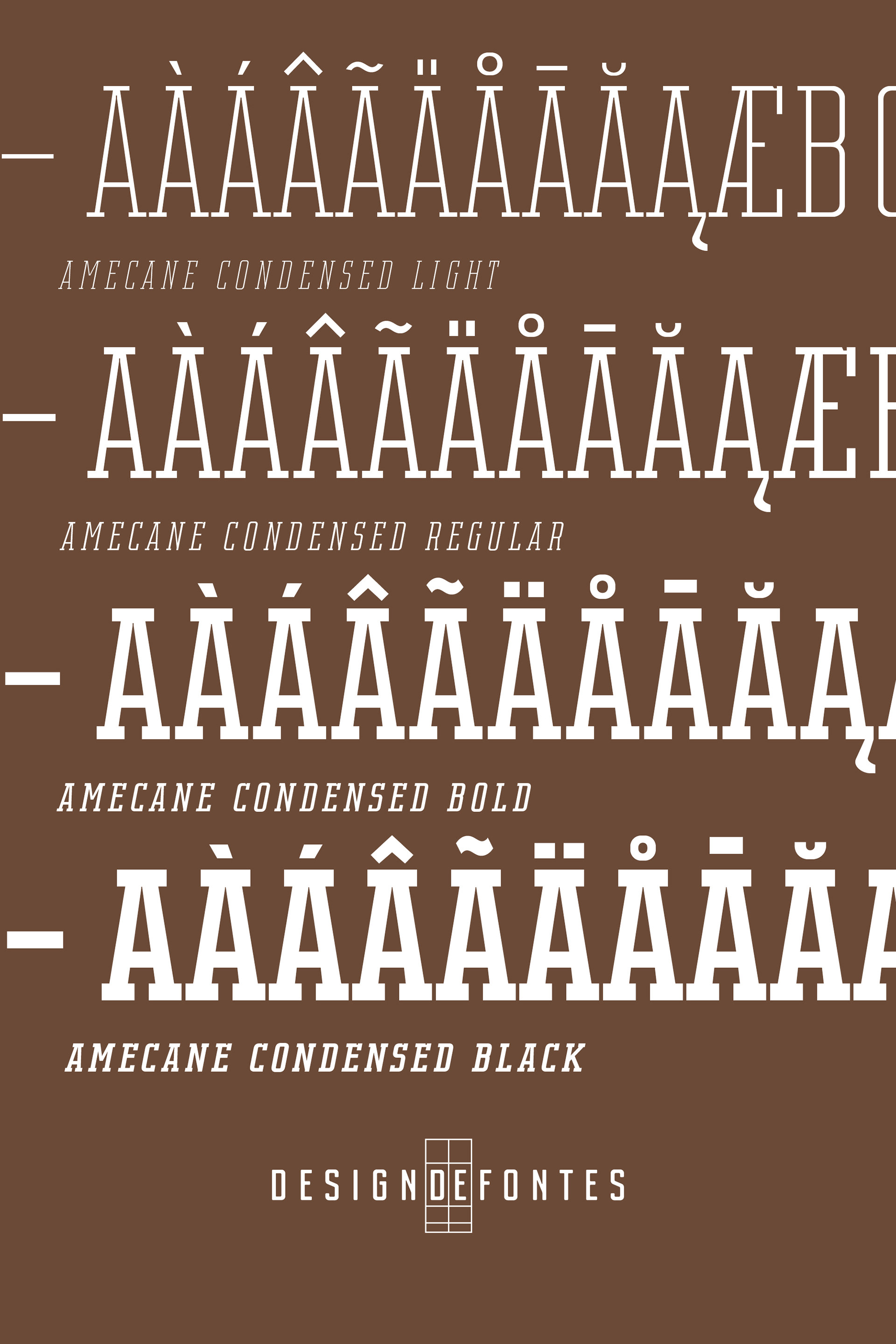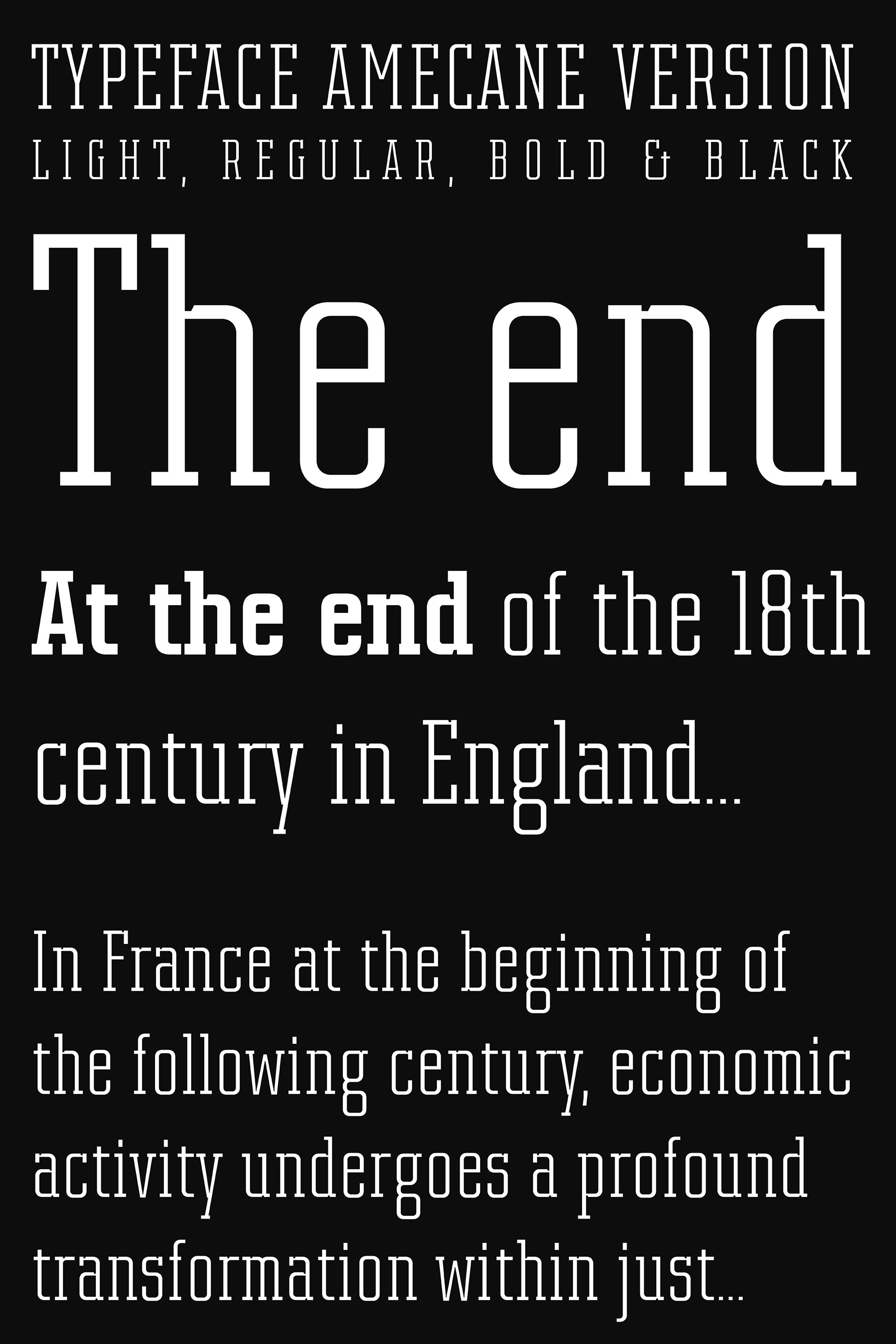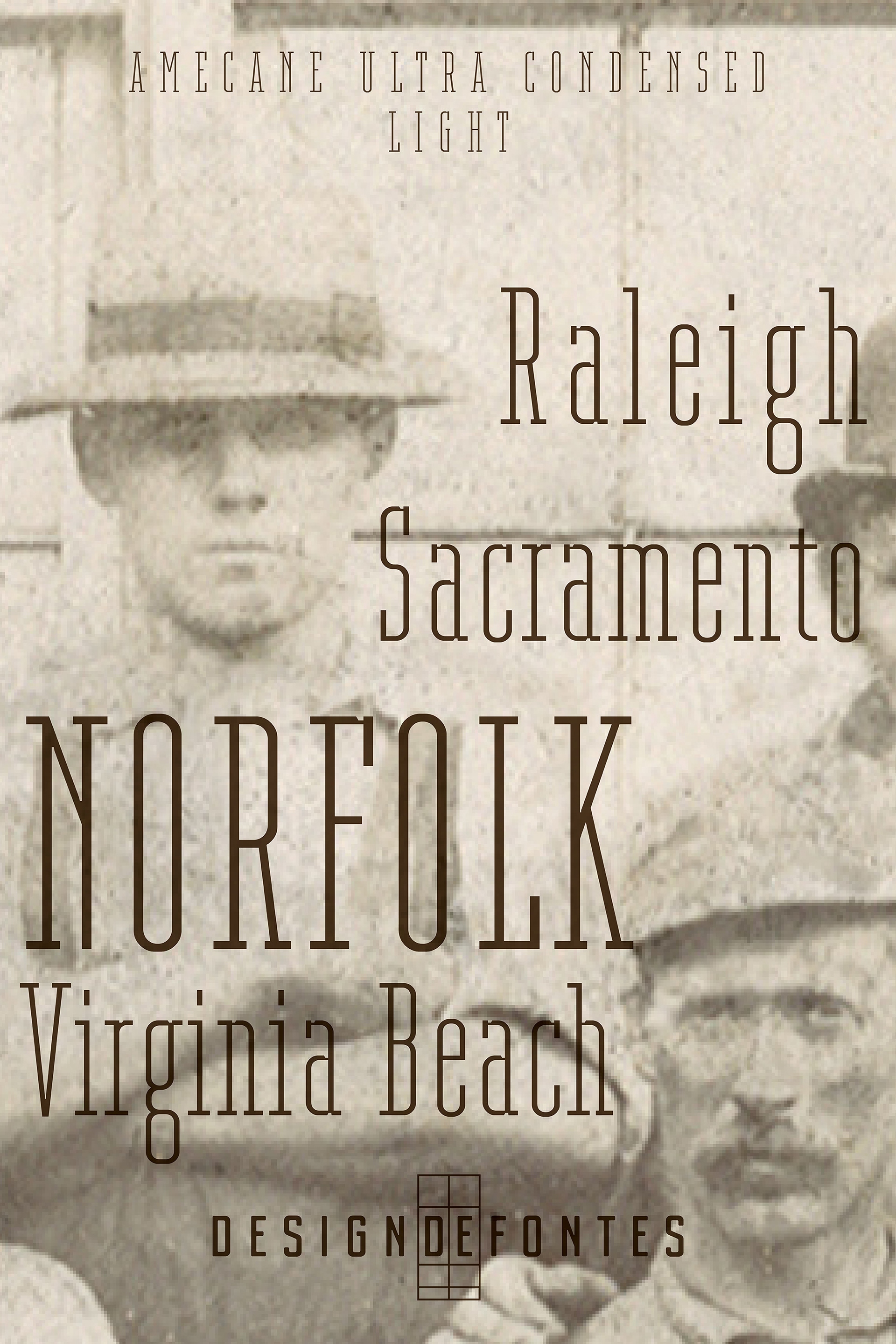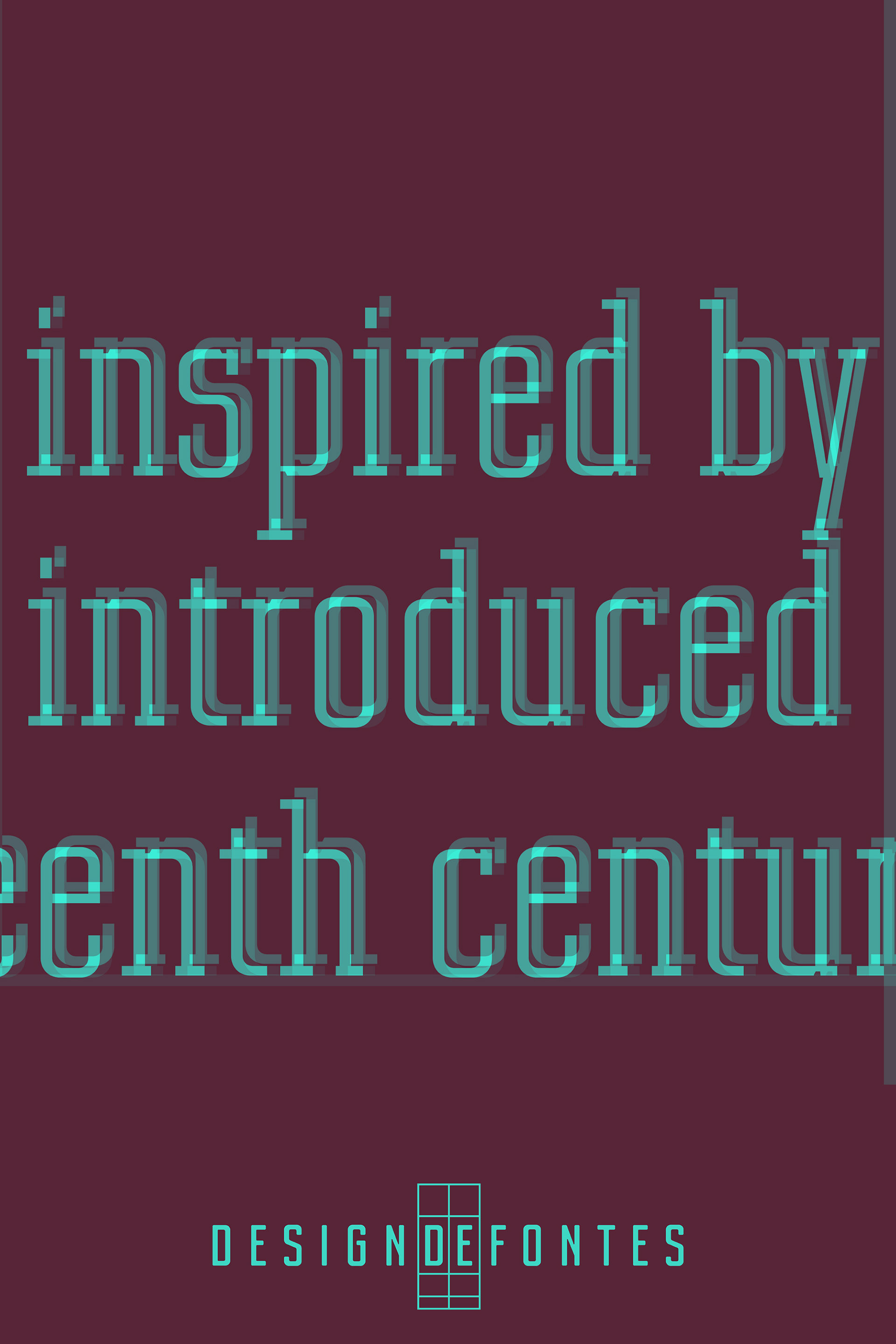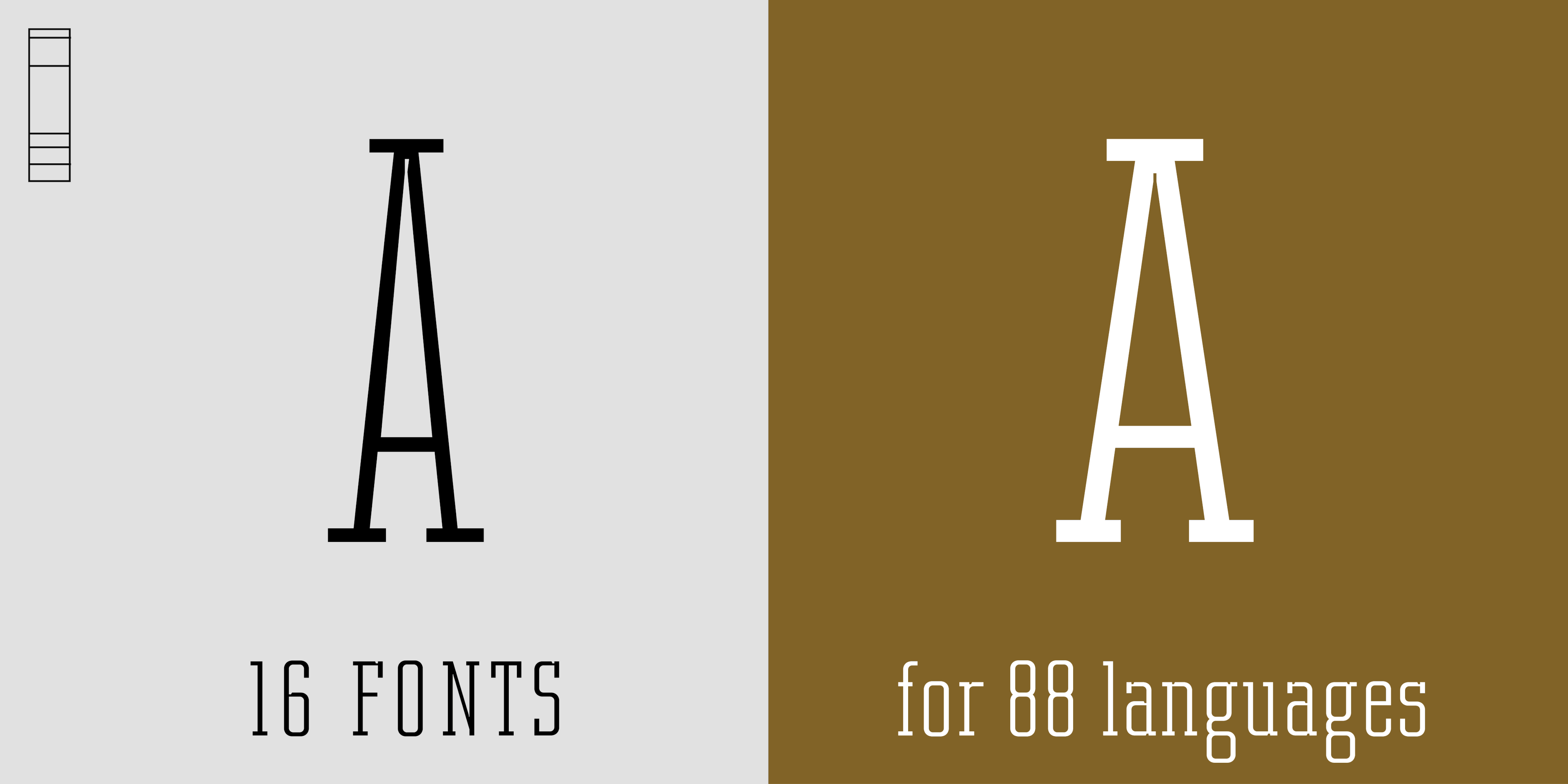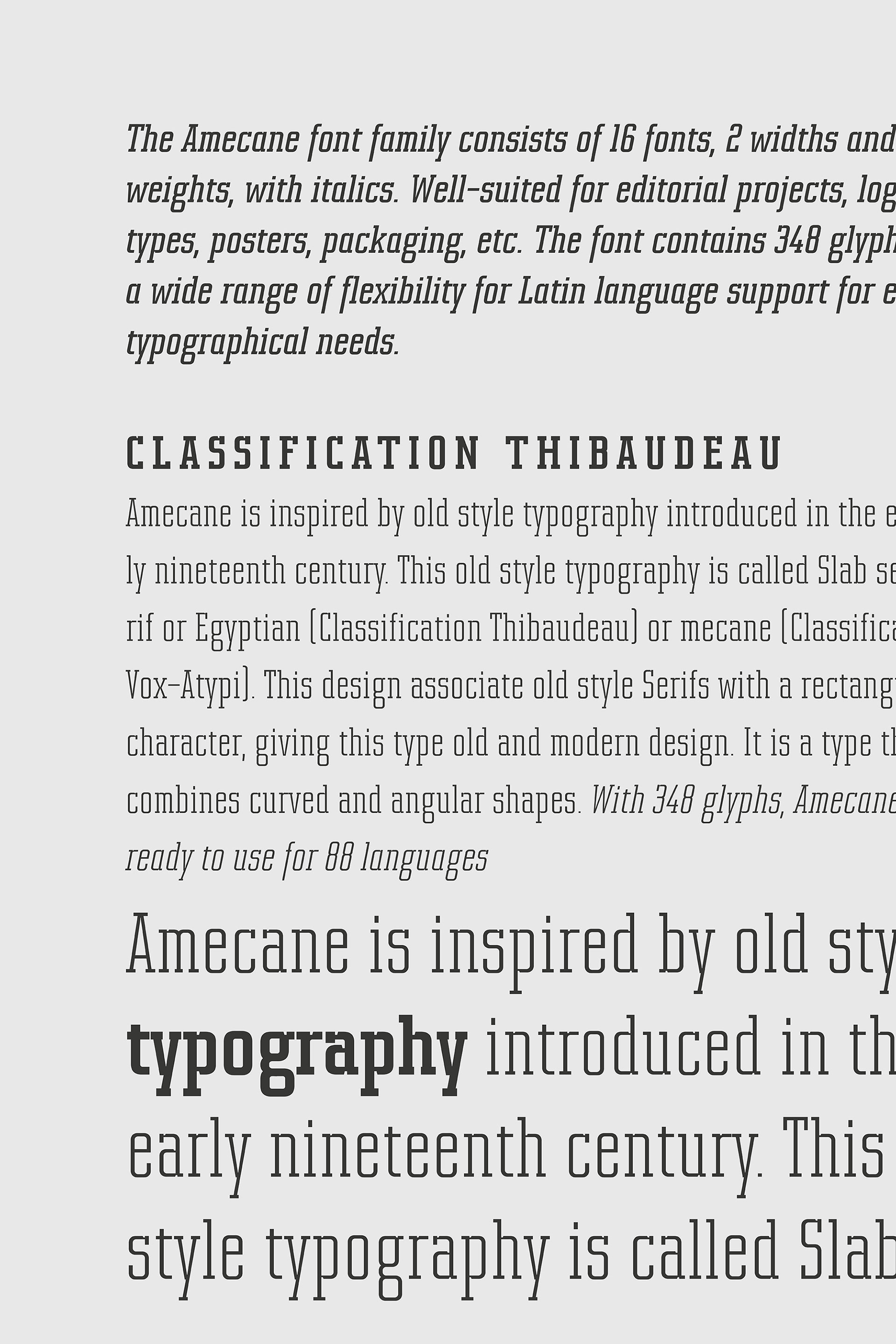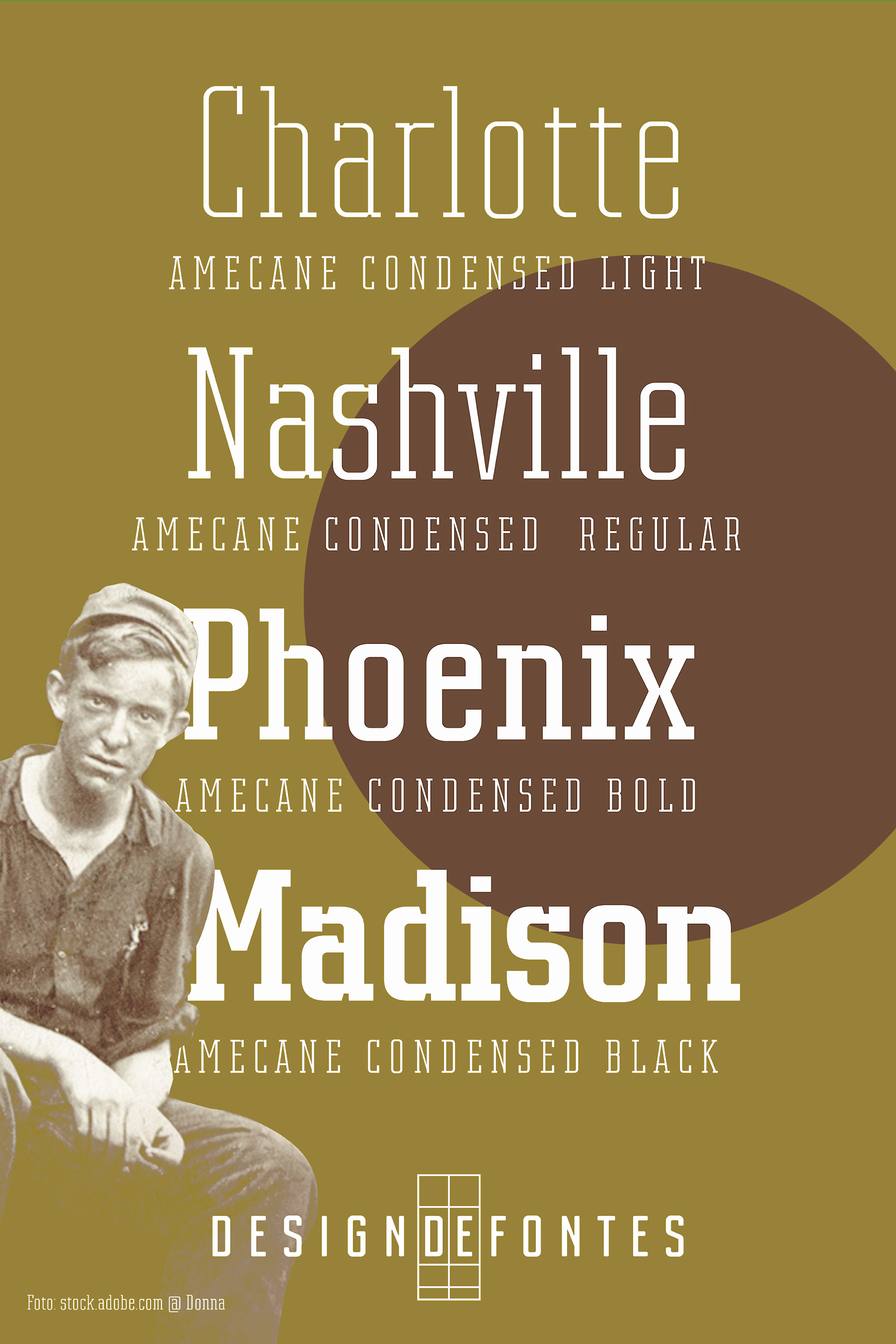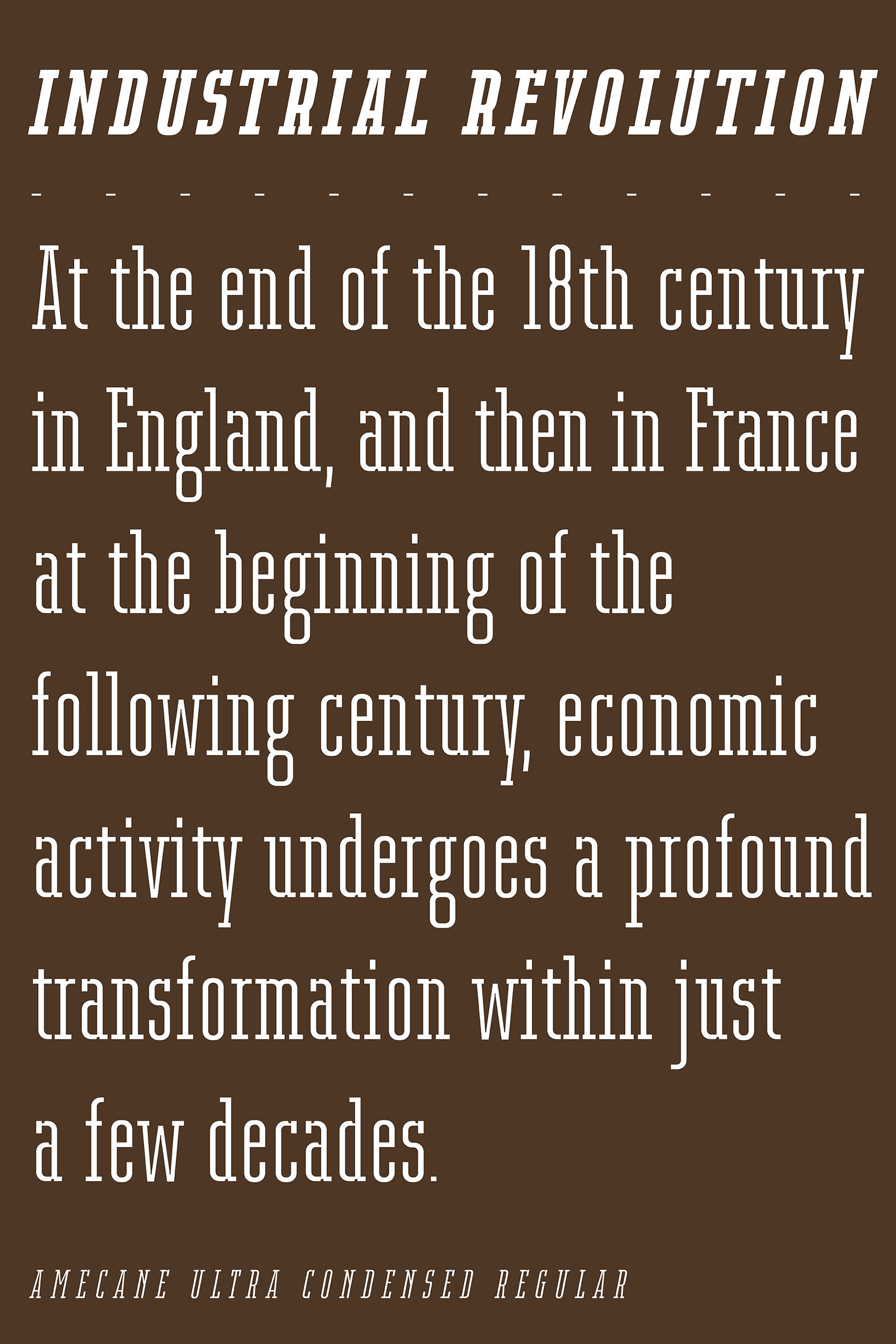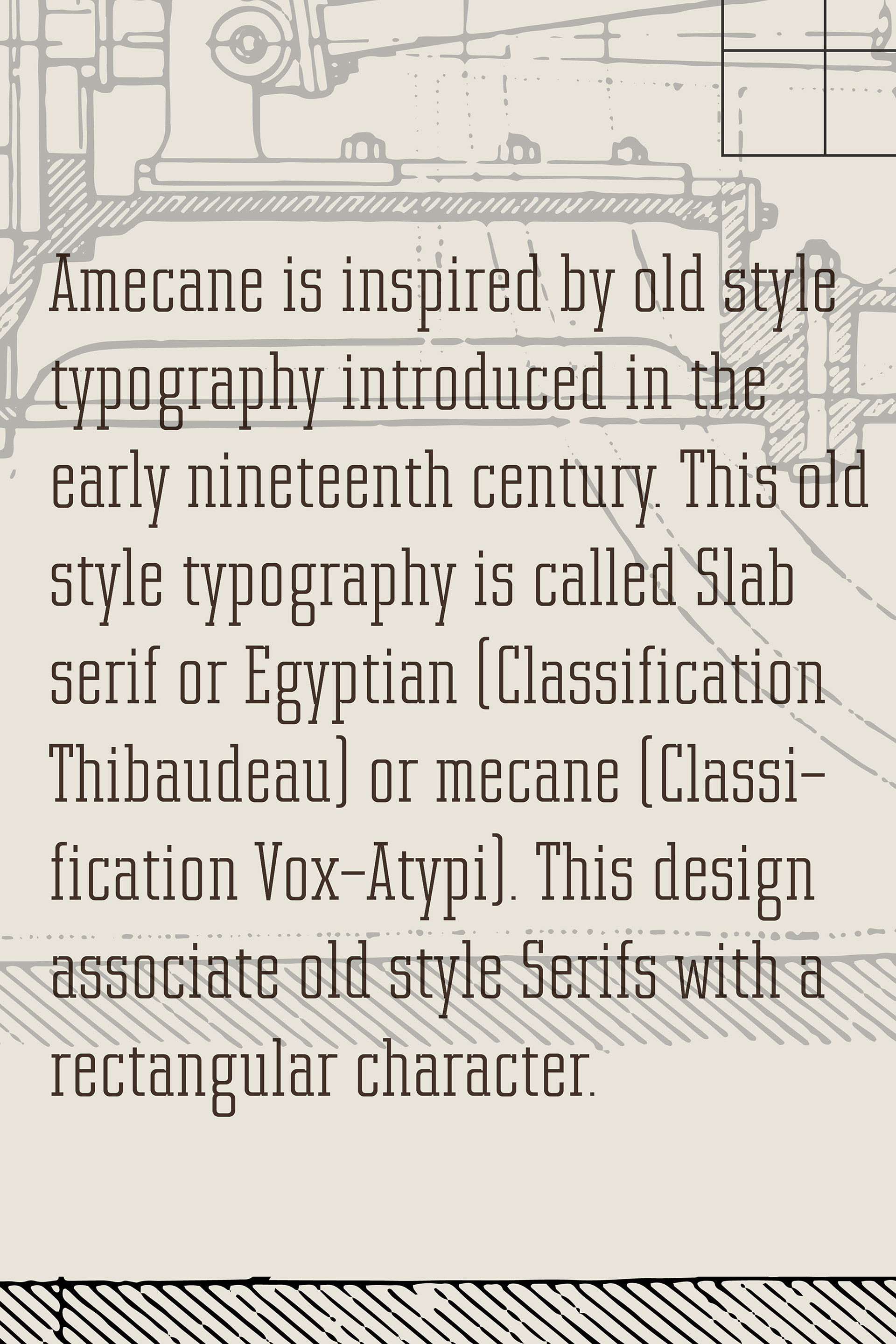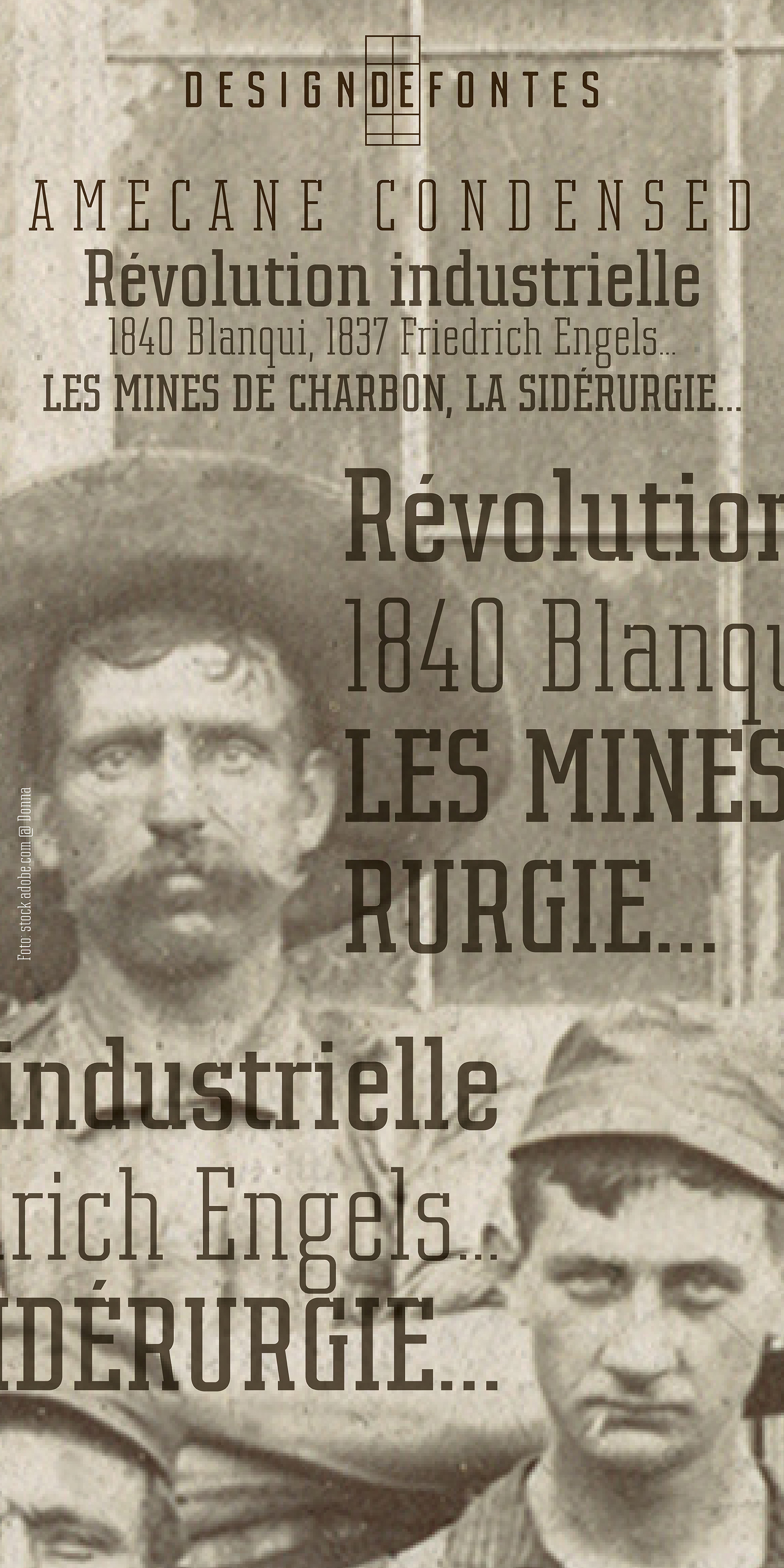
16 fonts, 2 widths and 4 weights, with italics, ready to use for 88 languages
16 fontes (styles), 2 chasses et 4 graisses, avec des italiques, prêtes à l’emploi pour au moins 88 langues différentes
Amecane
Amecane is a slab serif font - designed by Loïc Choquet.
The Amecane font family consists of 16 fonts, 2 widths and 4 weights, with italics. Well-suited for editorial projects, logotypes, posters, packaging, etc. The font contains 348 glyphs with a wide range of flexibility for Latin language support for every typographical needs.
Amecane est composée de 16 fontes (styles), 2 chasses et 4 graisses comprenant aussi des italiques. Complète pour être utilisable pour des projets éditoriaux, des conceptions de logotypes, d’affiches, de packaging, etc. Chaque fonte est composée de 348 glyphes répondant ainsi à une large demande en caractères pour de nombreux emplois typographiques.
Amecane is inspired by old style typography introduced in the early nineteenth century. This old style typography is called Slab serif or Egyptian (Classification Thibaudeau) or mecane (Classification Vox-Atypi). This design associate old style Serifs with a rectangular character, giving this type old and modern design. It is a type that combines curved and angular shapes.
Amecane est un caractère inspiré par d’anciens caractères typographiques qui ont été développés au début du XIXe siècle. Ces caractères ont été classés sous le nom d’égyptiennes (Classification Thibaudeau) ou de mécanes (Classification Vox-Atypi). Le design d’Amecane associe des empattements rectangulaires spécifiques à un design global inscrit dans des formes rectangulaires, associant ainsi un style retro dans des gabarits plus modernes. C’est un caractère qui associe des lignes courbes et des formes anguleuses.
With 348 glyphs, Amecane is ready to use for 88 languages
Grâce à ses 348 glyphes Amecane est utilisable pour 88 langues.
Weights & styles (16 fonts)
Ultra Condensed Light, Ultra Condensed Light Italic, Ultra Condensed, Ultra Condensed Italic, Ultra Condensed Bold, Ultra Condensed Bold Italic, Ultra Condensed Black, and Ultra Condensed Black Italic.
Condensed Light, Condensed Light Italic, Condensed, Condensed Italic, Condensed Bold, Condensed Bold Italic, Condensed Black, and Condensed Black Italic.
Amecane is ready to use for 88 languages
Afrikaans, Albanian, German, English, Assou, Low German, Lower Sorbian, Basque, Bemba, Béna, Bosnian, Cape Verdean, Catalan, Chambala, Cisena, Cornish, Mauritian Creole, Croatian, Danish, Diola-Fogny, Spanish, Estonian , Faroese, Filipino, Finnish, French, Ripuarian Frankish, Friulian, West Frisian, Scottish Gaelic, Galician, Welsh, Ganda, Gusii, Upper Sorbian, Hungarian, Indonesian, Irish, Icelandic, Italian, Kalendjin, Kiga, Latvian, Lithuanian, Luhya, Luo, Luxembourgish, Makhuwa-meetto, Makonde, Malay, Malagasy, Maltese, Manx, Matchame, Northern Ndebele, Dutch, Norwegian Bokmål, Norwegian Nynorsk, Nyankolé, Oromo, Polish, Portuguese, Romansh, Rombo, Romanian, Roundi, Rwa, Rwanda, Samburu, Inari Sami, Northern Sami, Sangho, Sangu, Shona, Slovak, Slovenian, Soga, Somali, Swedish, Swiss German, Swahili, Taita, Czech, Teso, Turkish, Turkmen, Vunjo, Zulu.
AMECANE EST PRÊTE À L’EMPLOI POUR 88 LANGUES DIFFÉRENTES
afrikaans, albanais, allemand, anglais, assou, bas-allemand, bas-sorabe, basque, bemba, béna, bosniaque, capverdien, catalan, chambala, cisena, cornique, créole mauricien, croate, danois, diola-fogny, espagnol, estonien, féroïen, filipino, finnois, français, francique ripuaire, frioulan, frison occidental, gaélique écossais, galicien, gallois, ganda, gusii, haut-sorabe, hongrois, indonésien, irlandais, islandais, italien, kalendjin, kiga, letton, lituanien, luhya, luo, luxembourgeois, makhuwa-meetto, makondé, malais, malgache, maltais, mannois, matchamé, ndébélé du Nord, néerlandais, norvégien bokmål, norvégien nynorsk, nyankolé, oromo, polonais, portugais, romanche, rombo, roumain, roundi, rwa, rwanda, sambourou, sami d’Inari, sami du Nord, sangho, sangu, shona, slovaque, slovène, soga, somali, suédois, suisse allemand, swahili, taita, tchèque, teso, turc, turkmène, vunjo, zoulou.